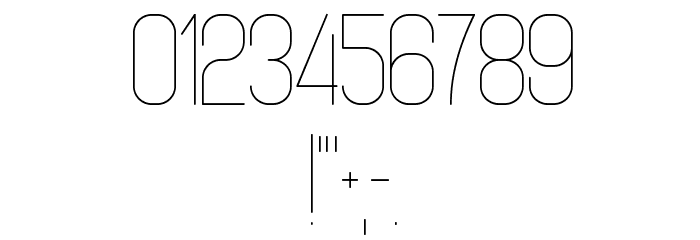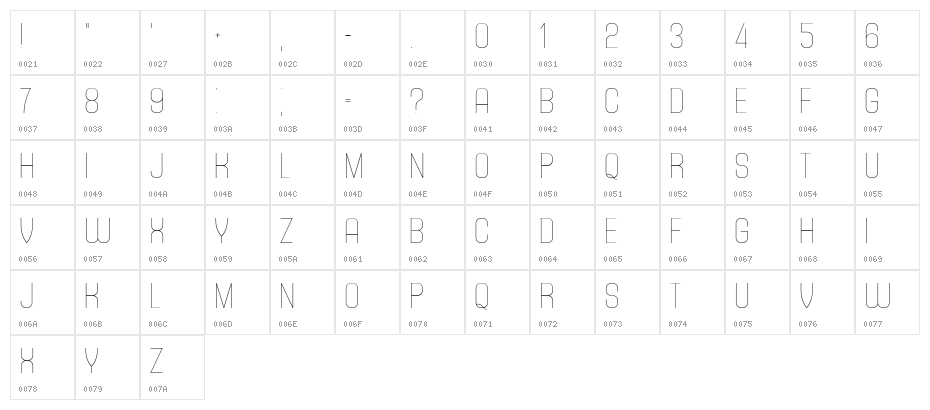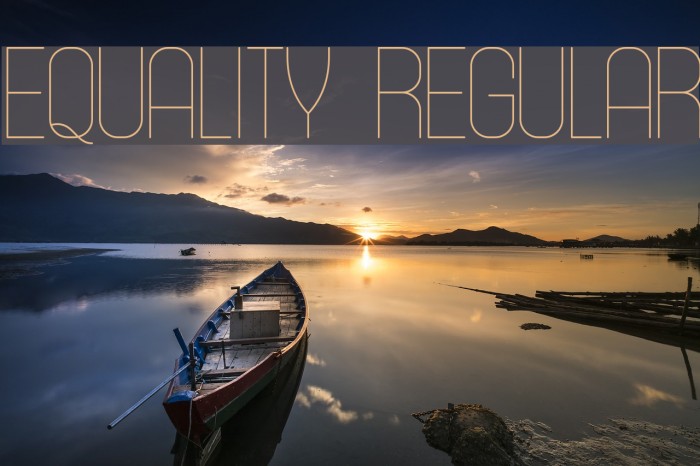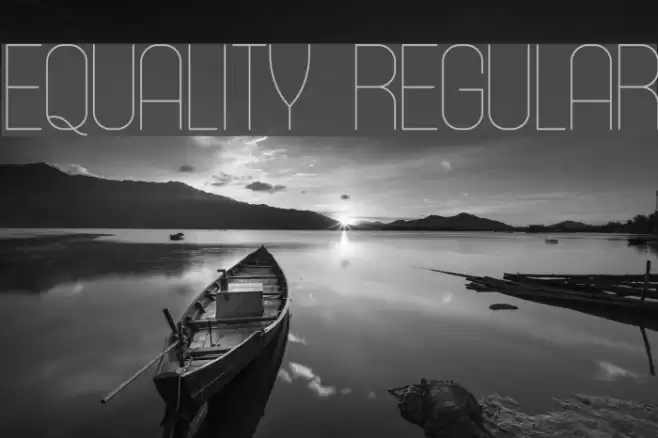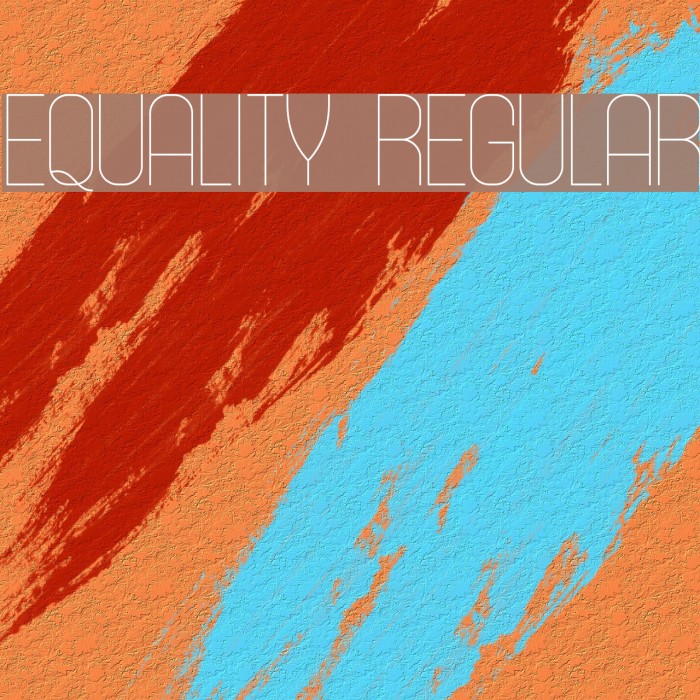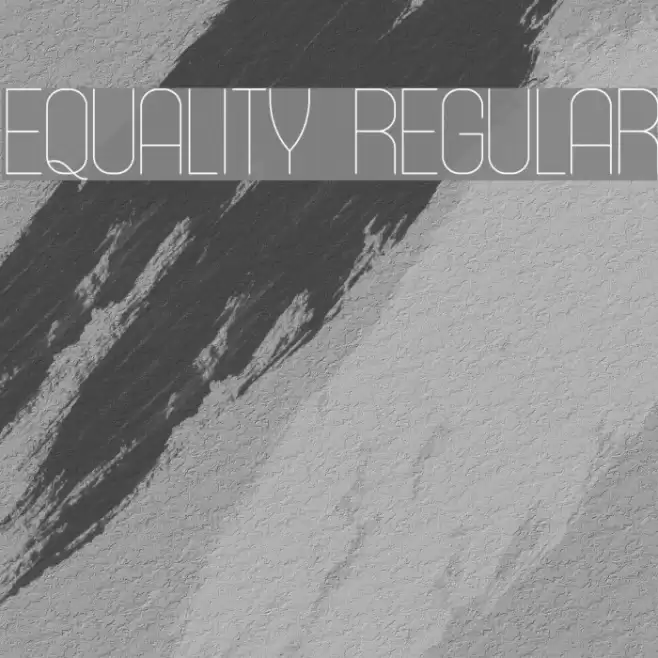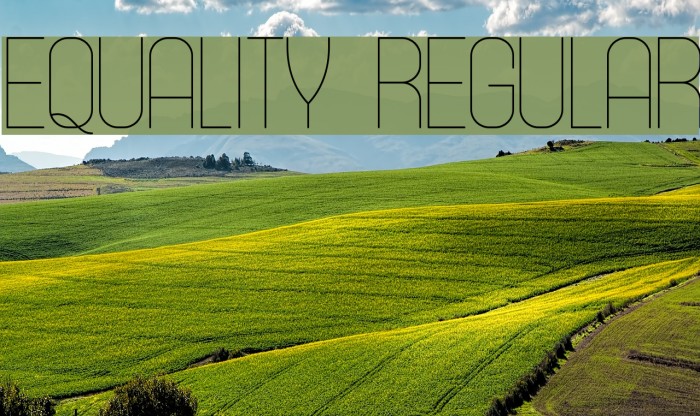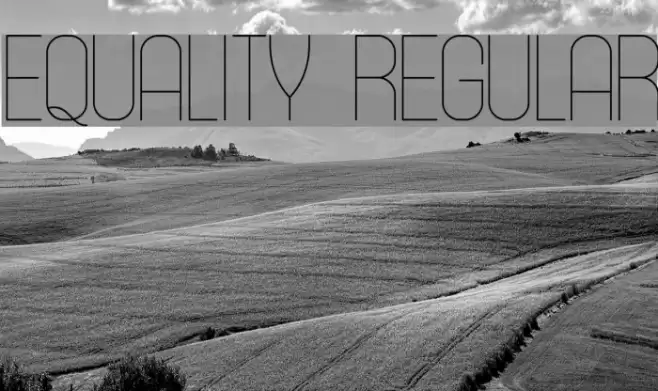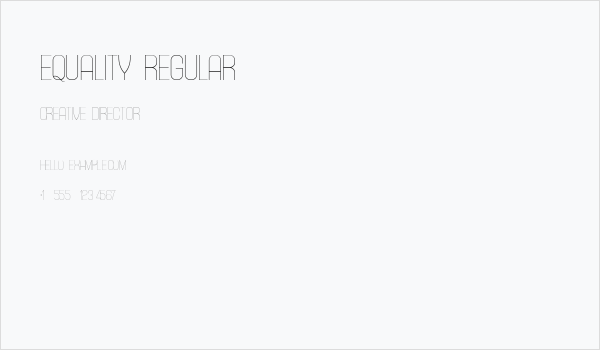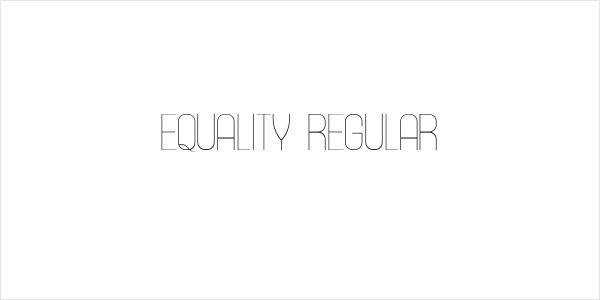
Equality Regular Font
Equality Regular Description
This font features a sleek, modern design with thin, elongated letterforms that convey a sense of elegance and sophistication. The characters are constructed with clean, straight lines and subtle curves, creating a harmonious balance between geometric precision and artistic flair. The uppercase and lowercase letters maintain a consistent height, contributing to a uniform appearance. The numerals and special characters are designed with the same minimalist aesthetic, ensuring seamless integration across various applications. Its airy, open structure makes it highly legible, even at smaller sizes.
| Proposed Projects | Ideal for fashion magazines, luxury branding, minimalist posters, and modern web design. |